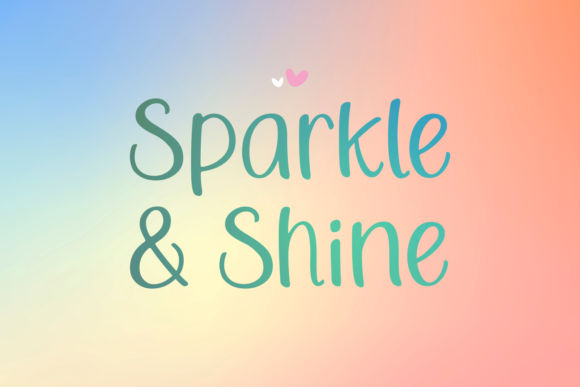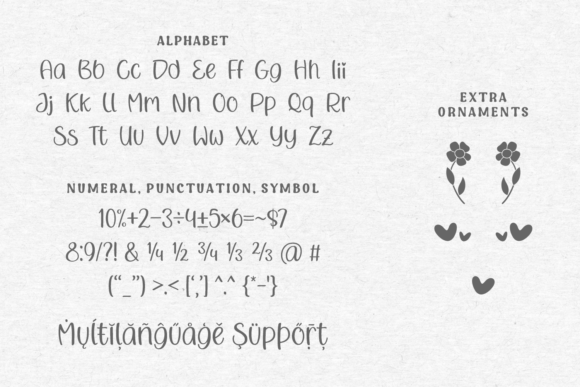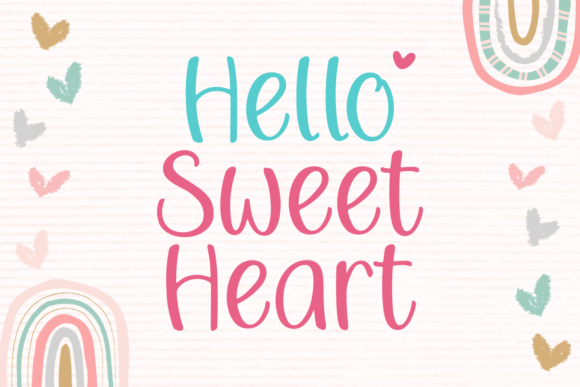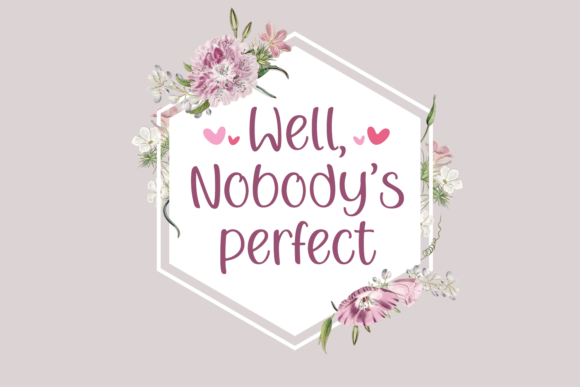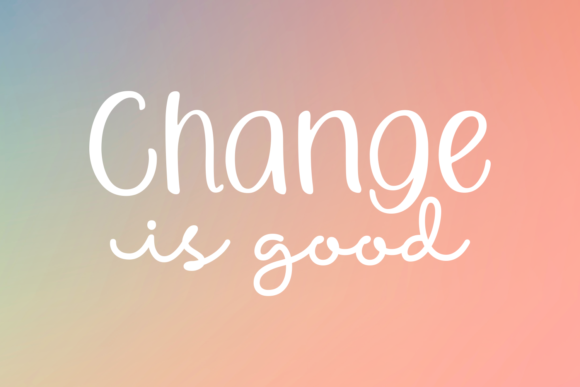
Introduction to Ningst Cute Font
Ningst Cute is a modern handwritten font that is readable, lovely and stylish.
It is defined by smooth curves and is perfect for fashion branding or editorial designs .